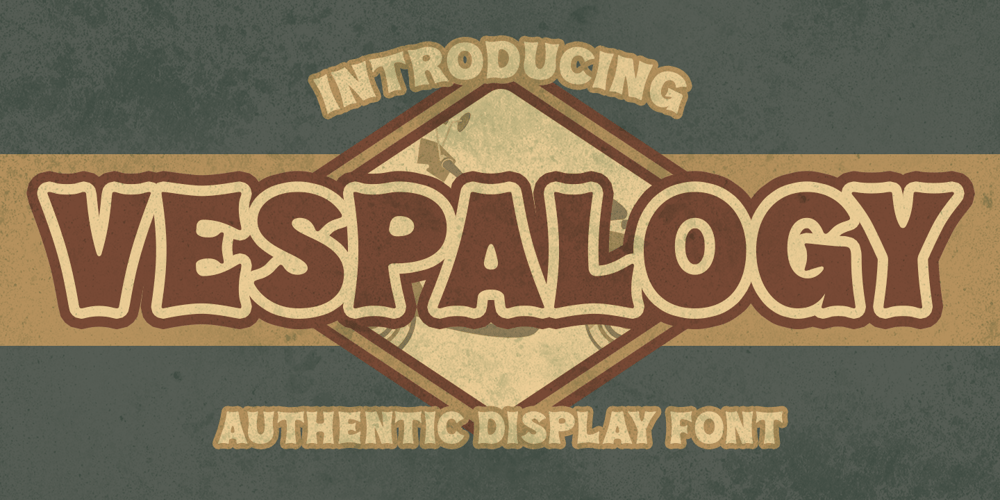
Vespalogy
Vespalogy font
Vespalogy Font Family was designed by Abdul Malik Wisnu and published by Almarkha Type. Vespalogy contains 1 styles and family package options. Vespalogy – Fonts with a vintage touch reminiscent of past designs, making your design needs look unique and classic style. It is perfect for any design project as Invitation,logo, book cover, craft or any design purposes.